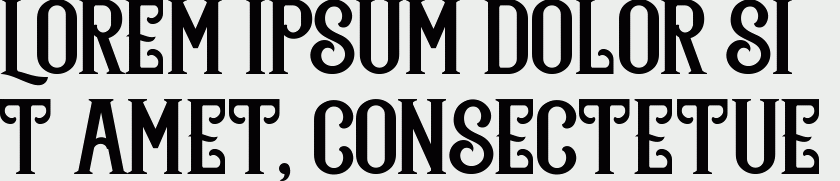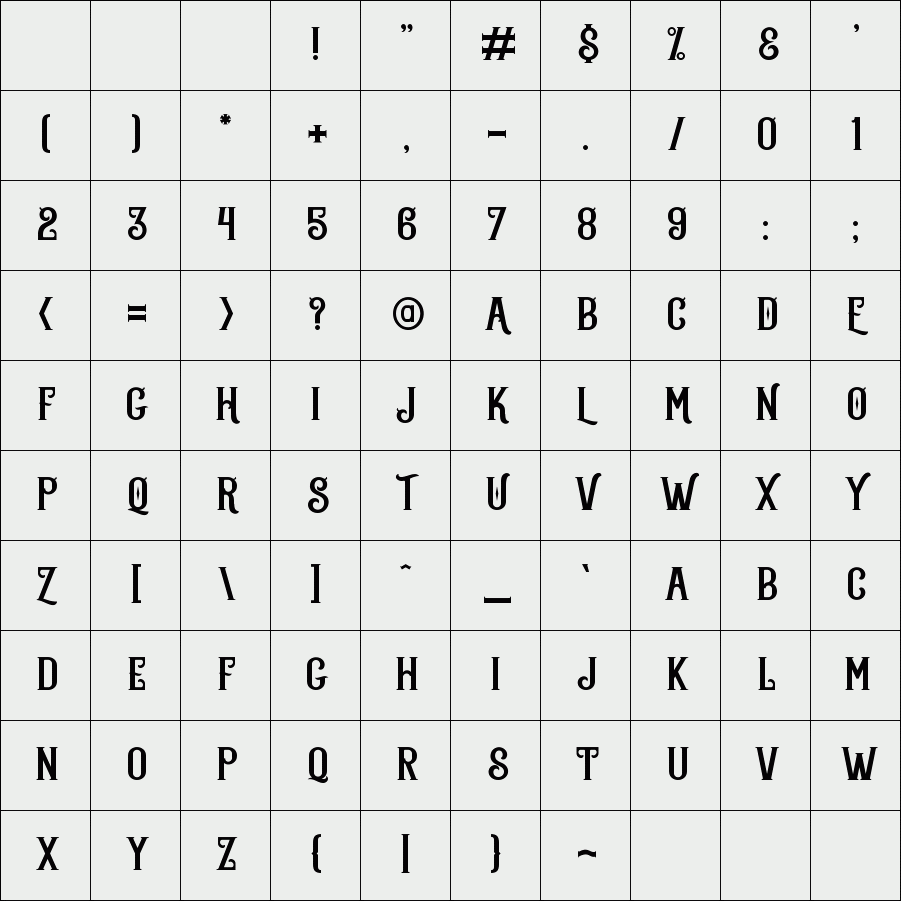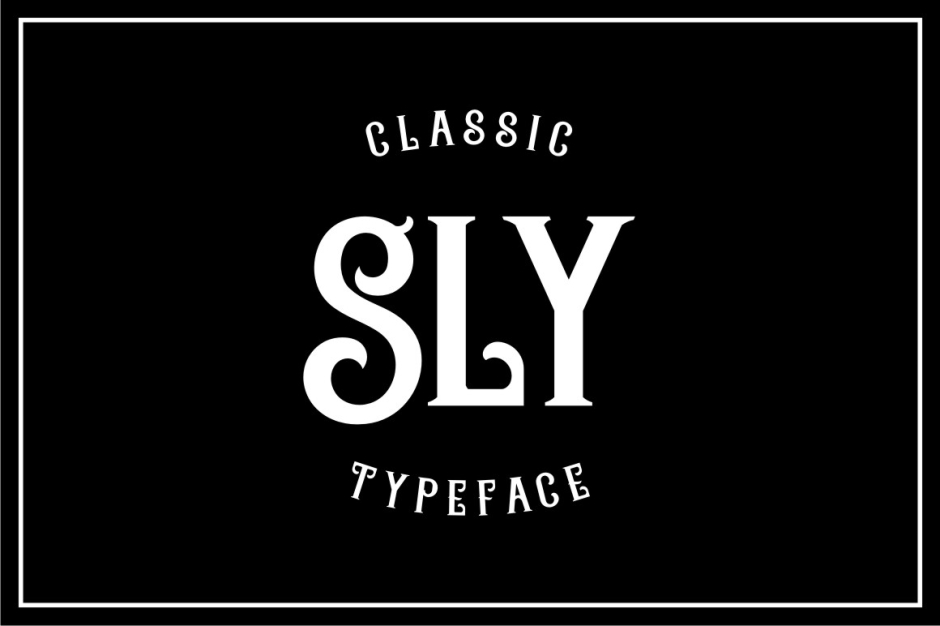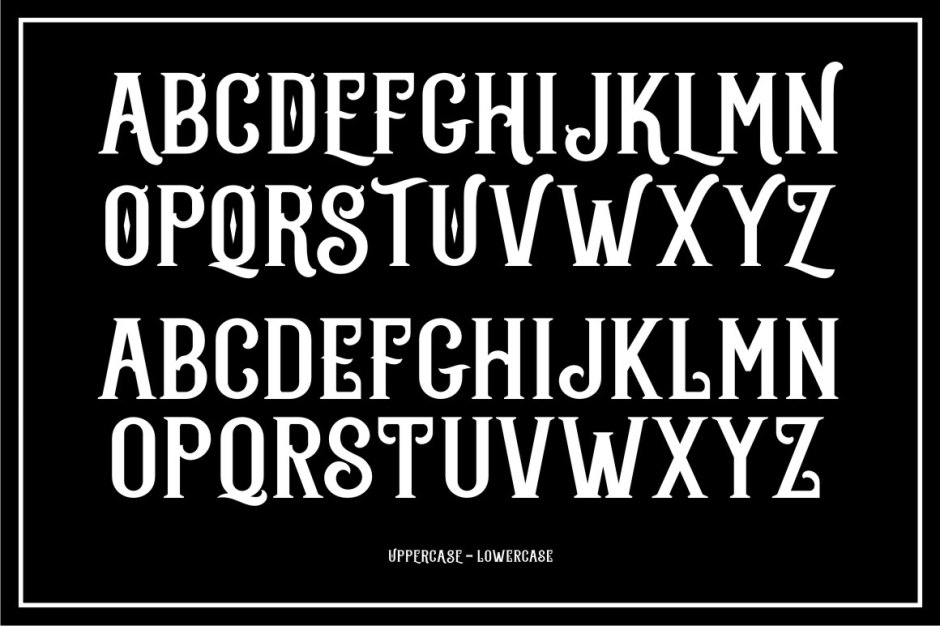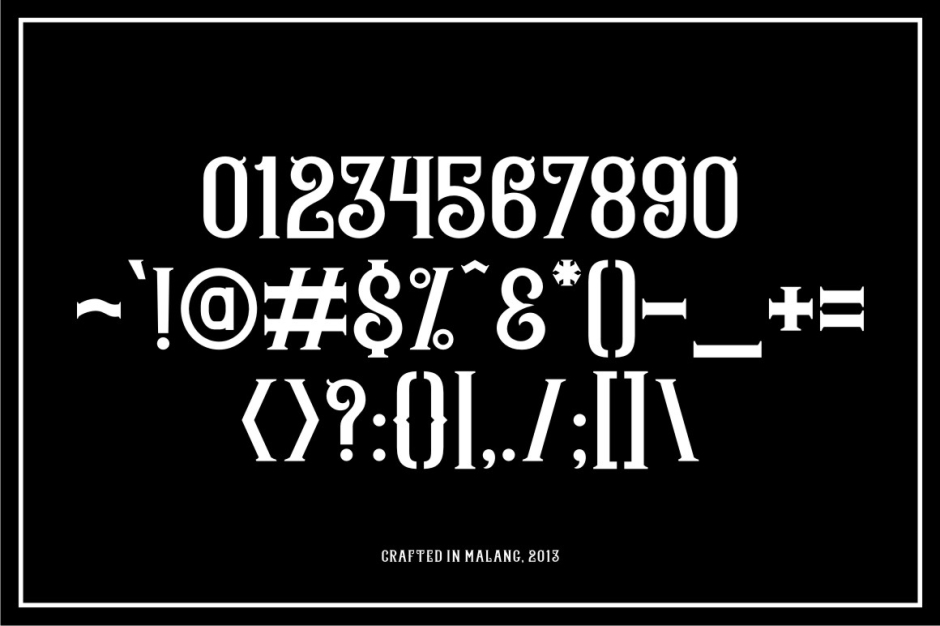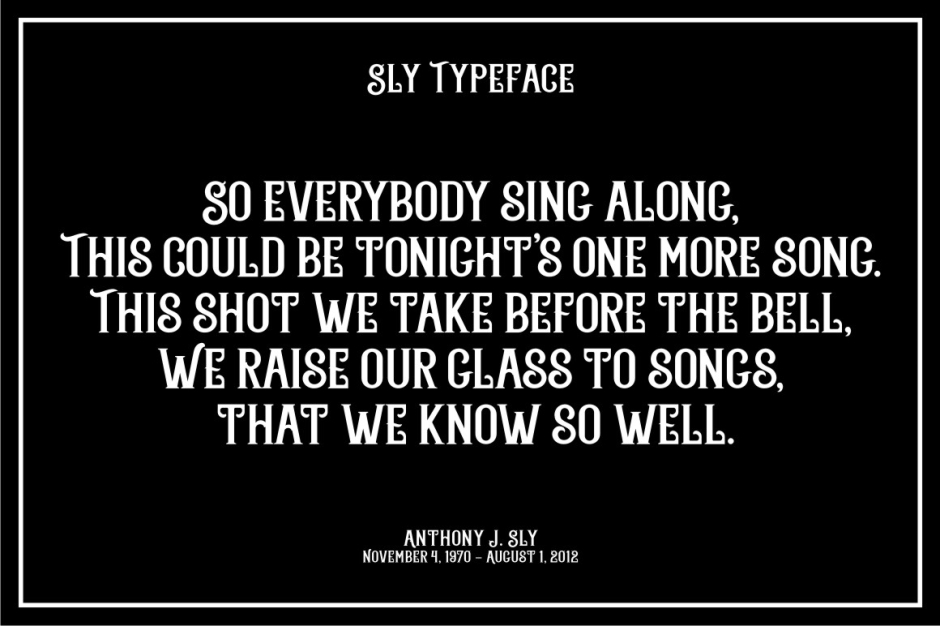
Sly
Sly is a font / typeface that inspired from classic lettering letters.
A combo between a classic serif with an ornamental feel,
Mix upper and lowercase letters to get some unique combinations.
This will be a great addition for your vintage themed font / typeface collections.
Available in uppercase, lowercase, numerals and basic punctuation characters.
A combo between a classic serif with an ornamental feel,
Mix upper and lowercase letters to get some unique combinations.
This will be a great addition for your vintage themed font / typeface collections.
Available in uppercase, lowercase, numerals and basic punctuation characters.